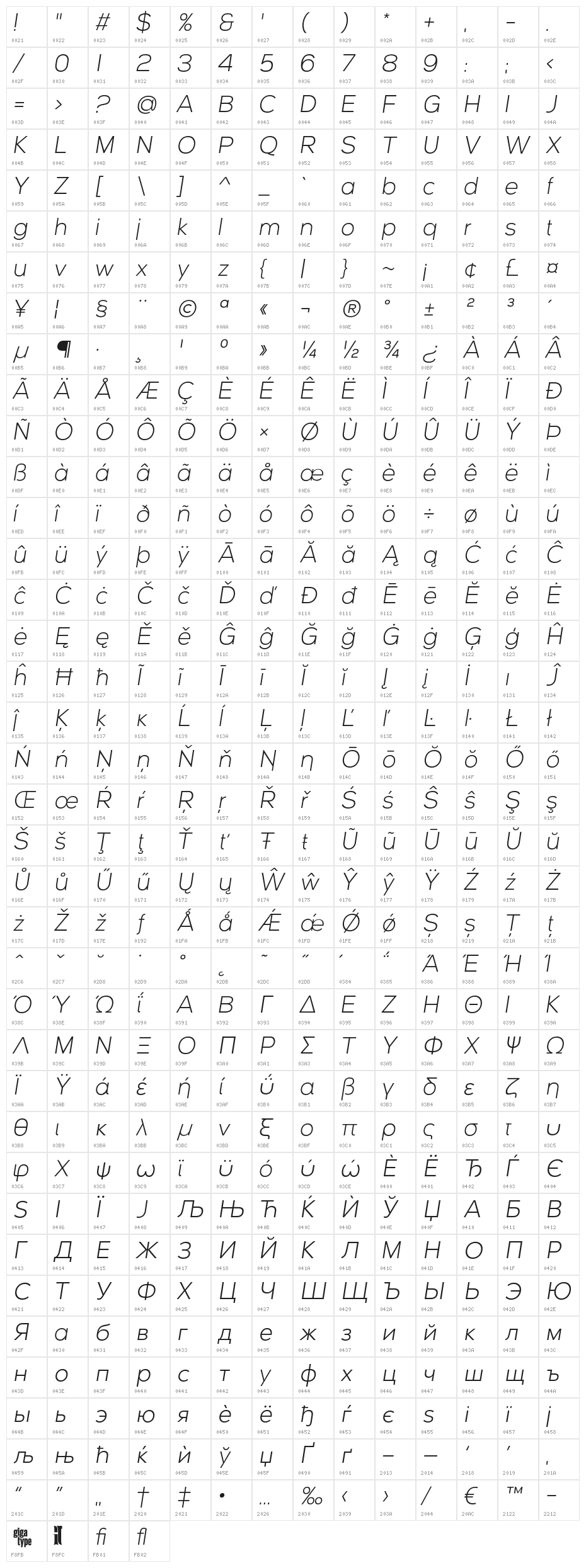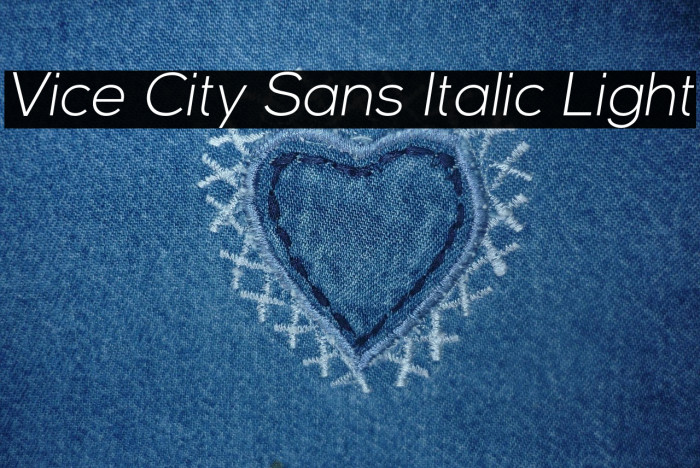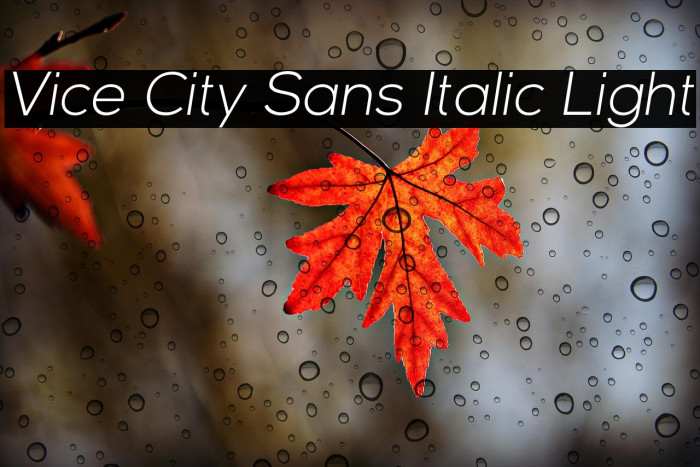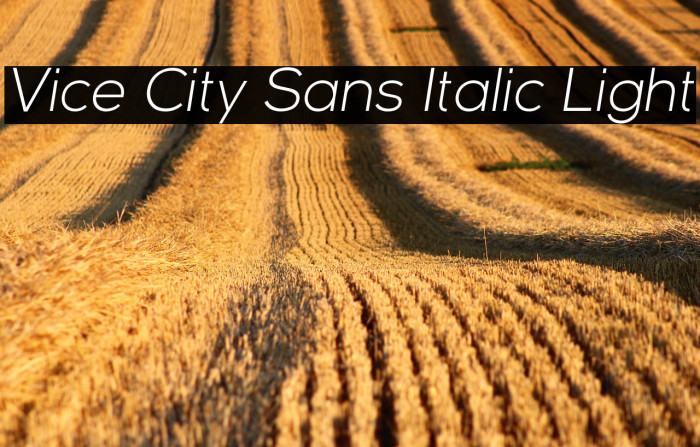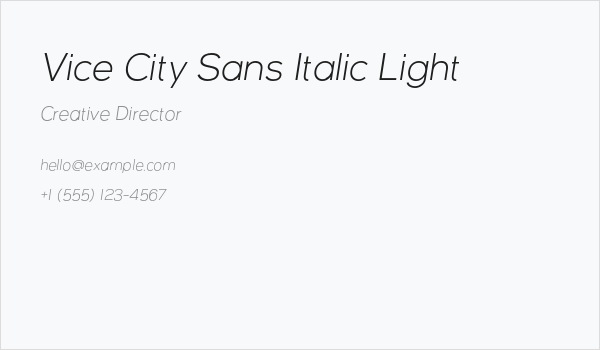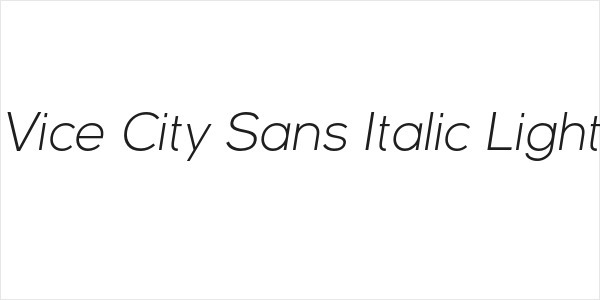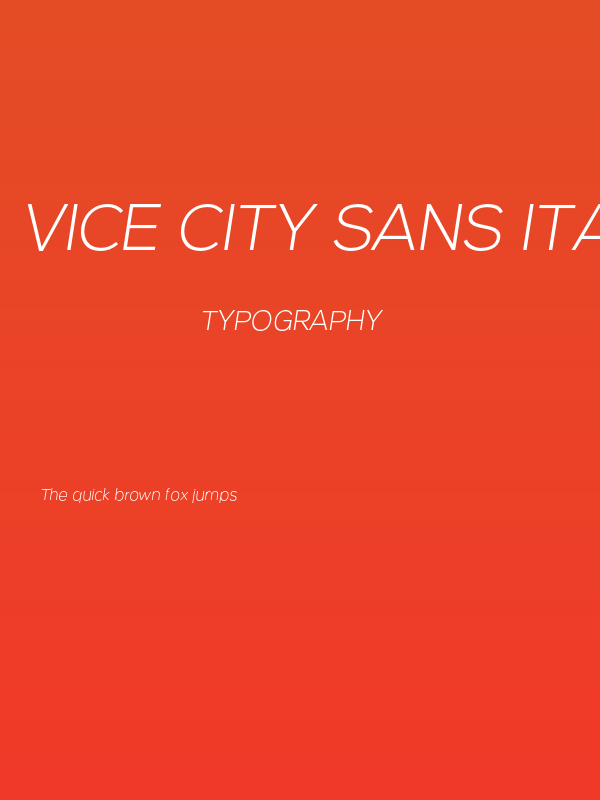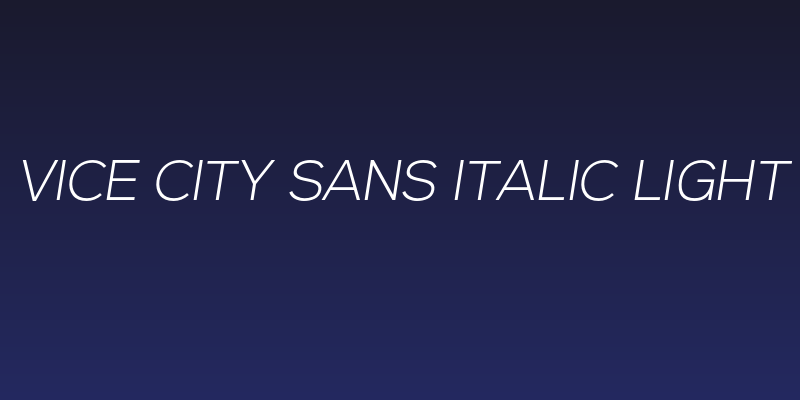
Vice City Sans Italic Light Font
Vice City Sans Italic Light Description
A sleek, modern sans-serif font with a light weight and italic style, featuring clean lines and minimal contrast.
| Use Case | Headlines, Body text |
| Proposed Projects | Tech branding, modern websites, app interfaces. |